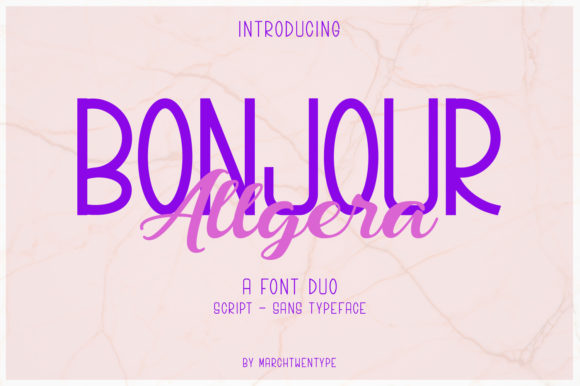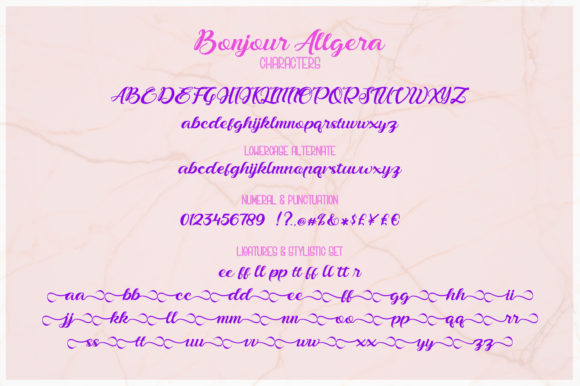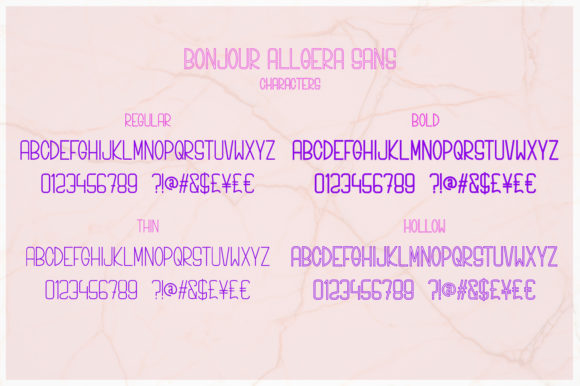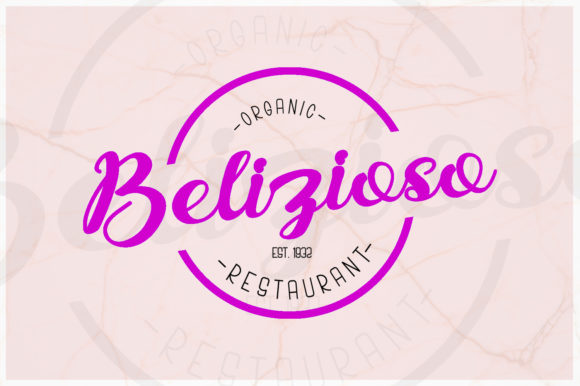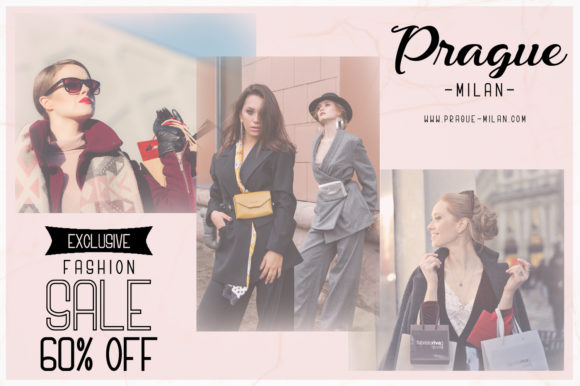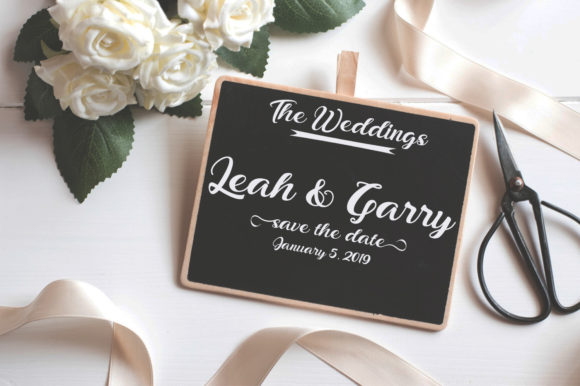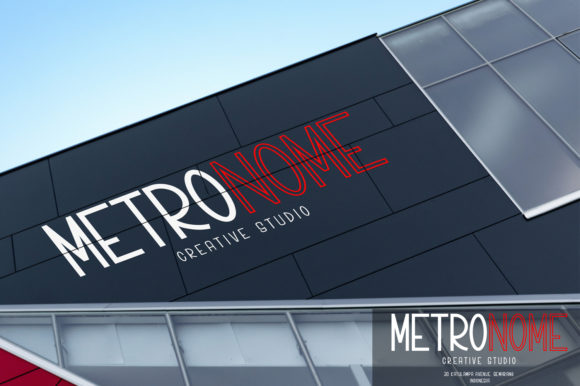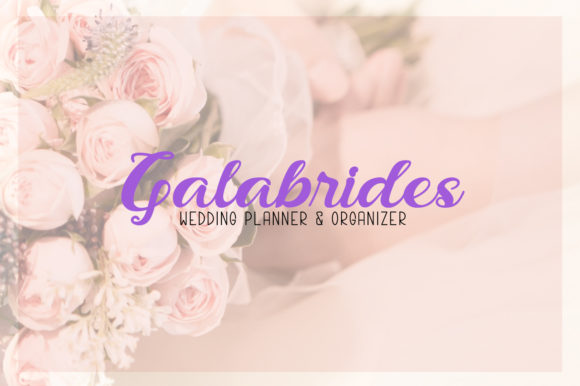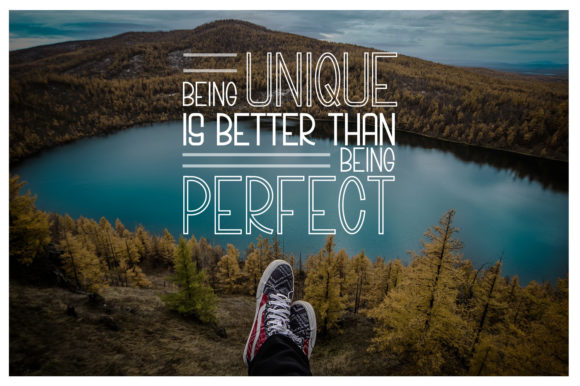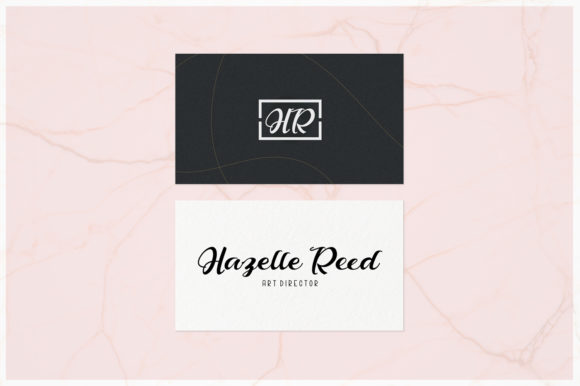
Bonjour Allgera Duo Font
About Bonjour Allgera Duo Font
The Bonjour Allgera is a beautiful script and sans serif font duo. It’s calligraphy style gives it an elegant feel which can be used for every design which needs a striking, yet luxurious typeface.